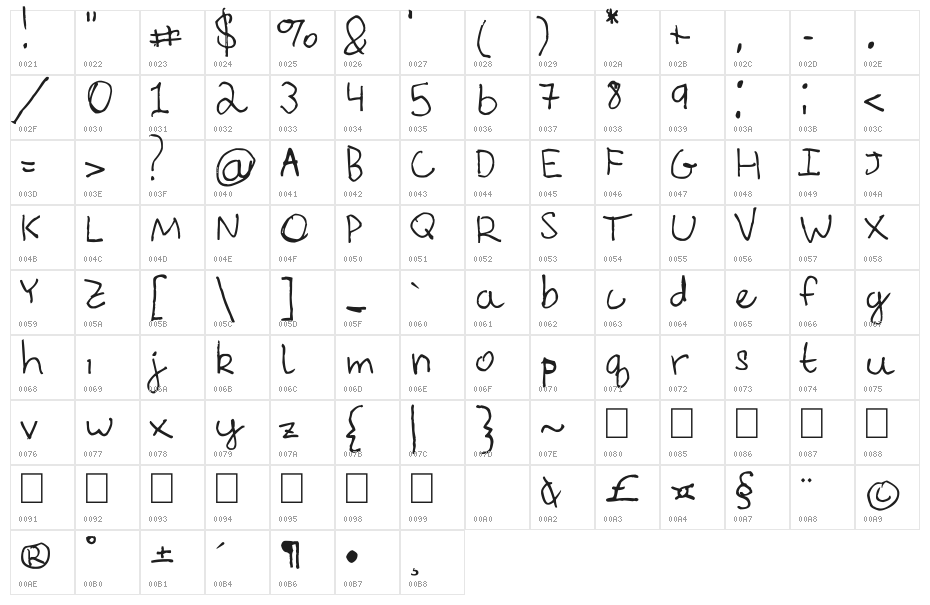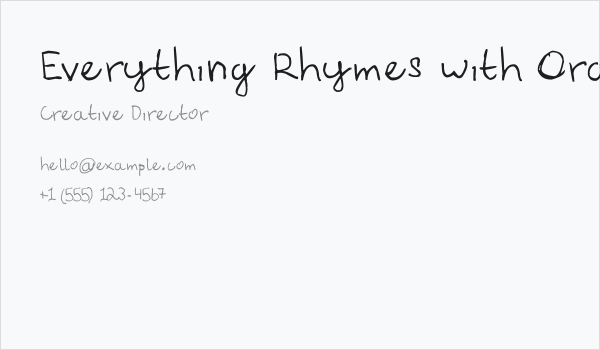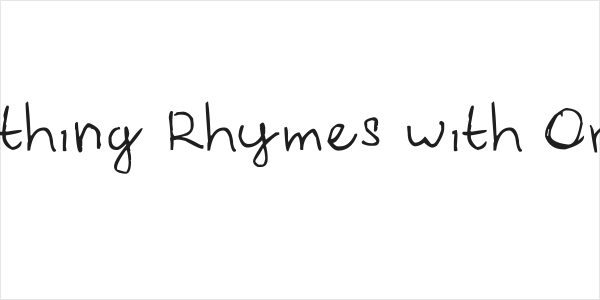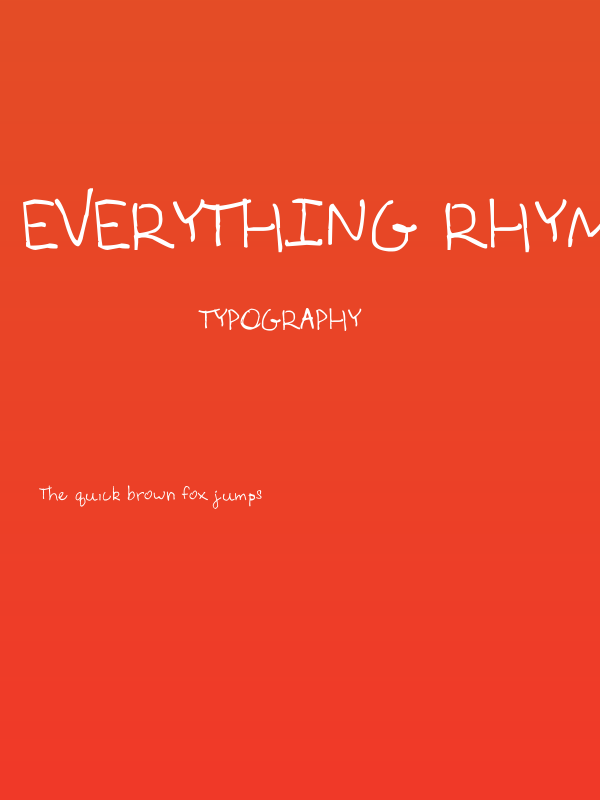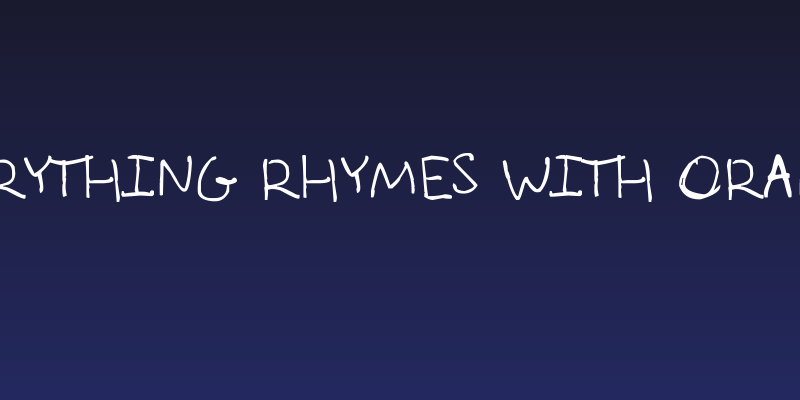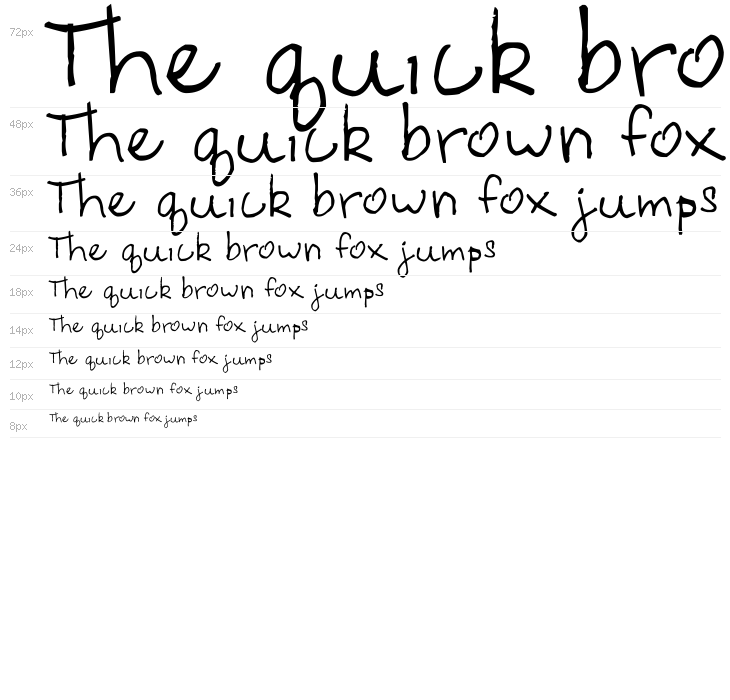
Everything Rhymes with Orange Font
Everything Rhymes with Orange Description
This playful and energetic font features a handwritten style that exudes a casual and informal vibe. The letters are slightly irregular, with varying stroke thicknesses that add a sense of dynamism and movement. The uppercase and lowercase characters maintain a consistent flow, while the numerals and special characters complement the overall aesthetic. The font's organic feel makes it ideal for projects that require a personal touch or a sense of whimsy.
| Proposed Projects | Great for greeting cards, children's books, personal blogs, and creative branding projects. |